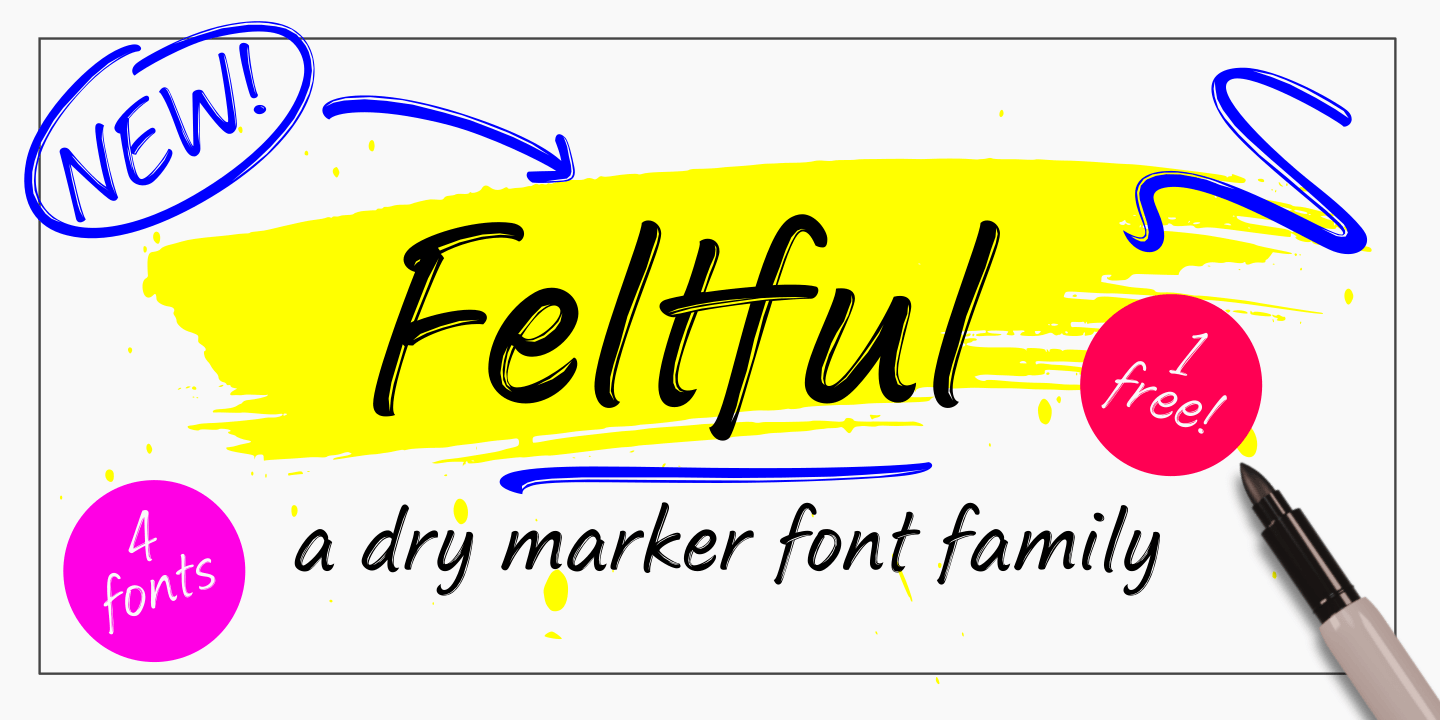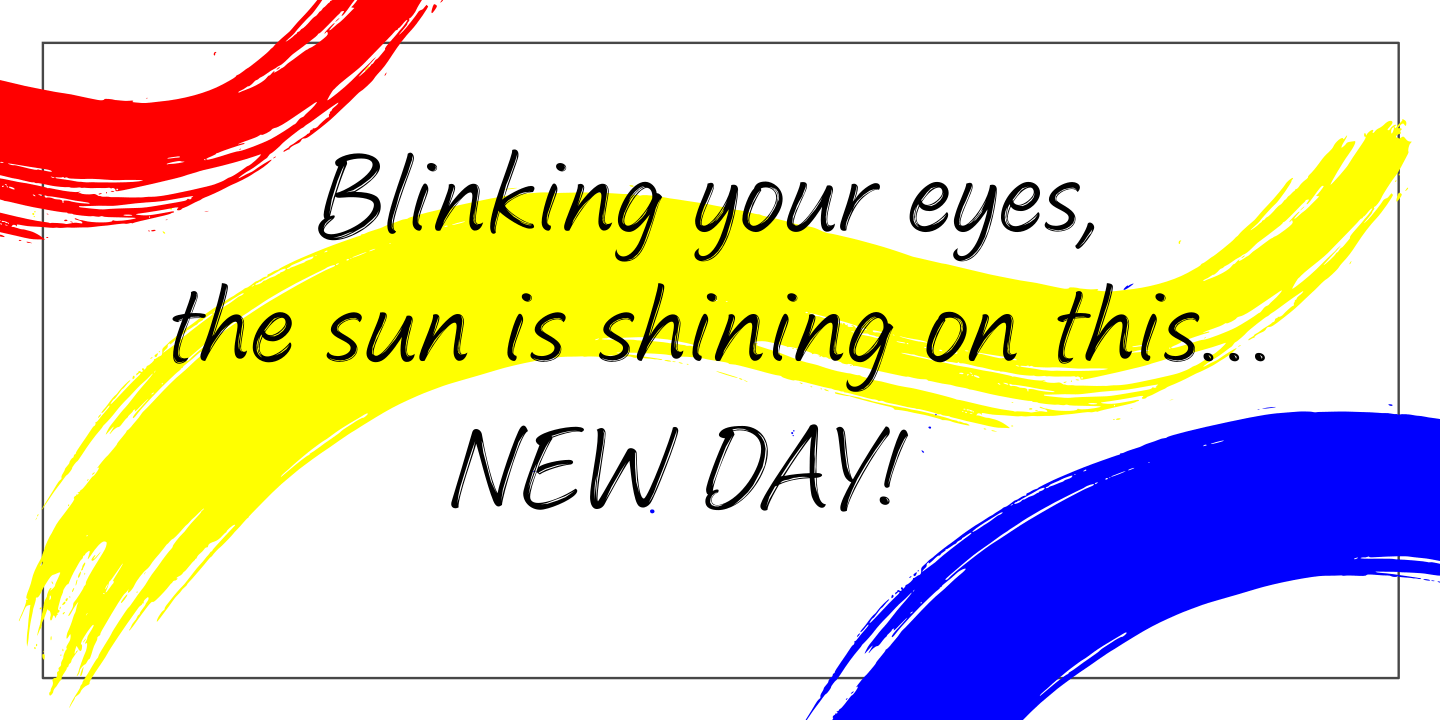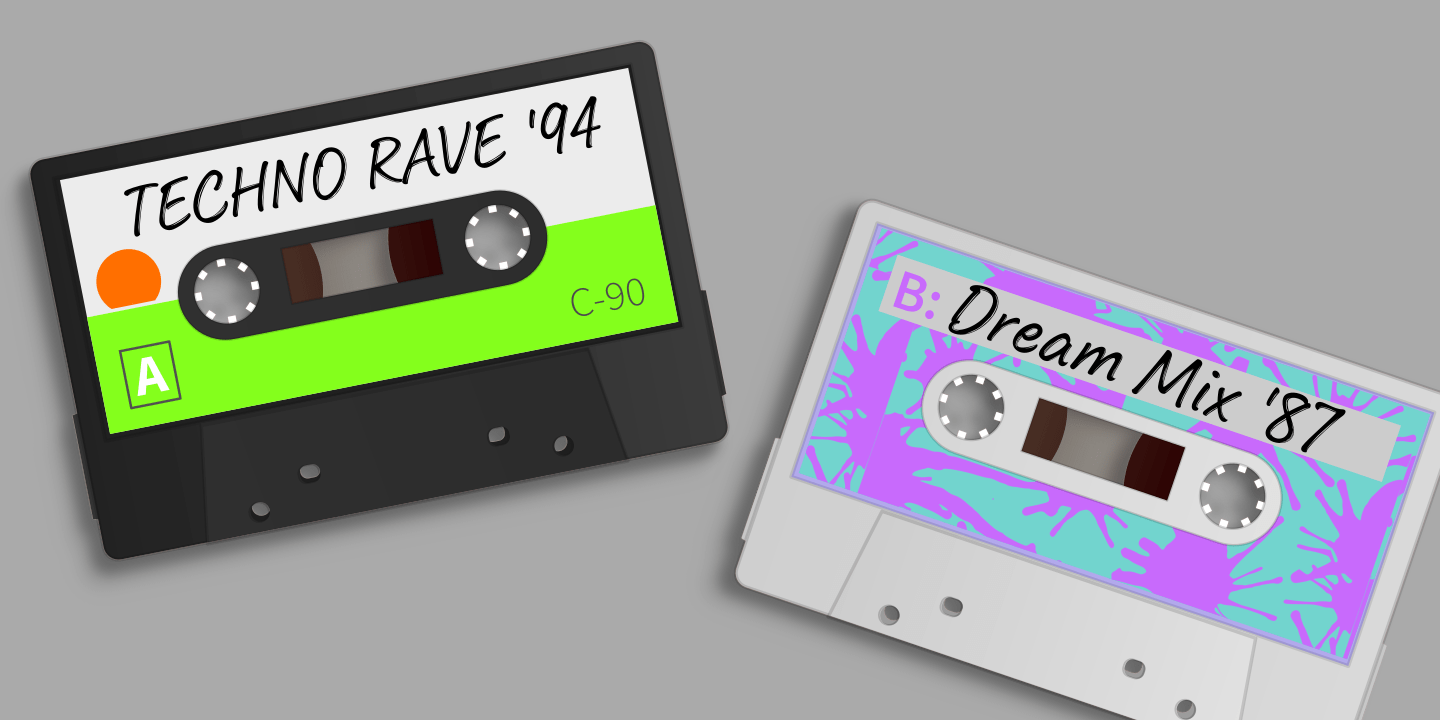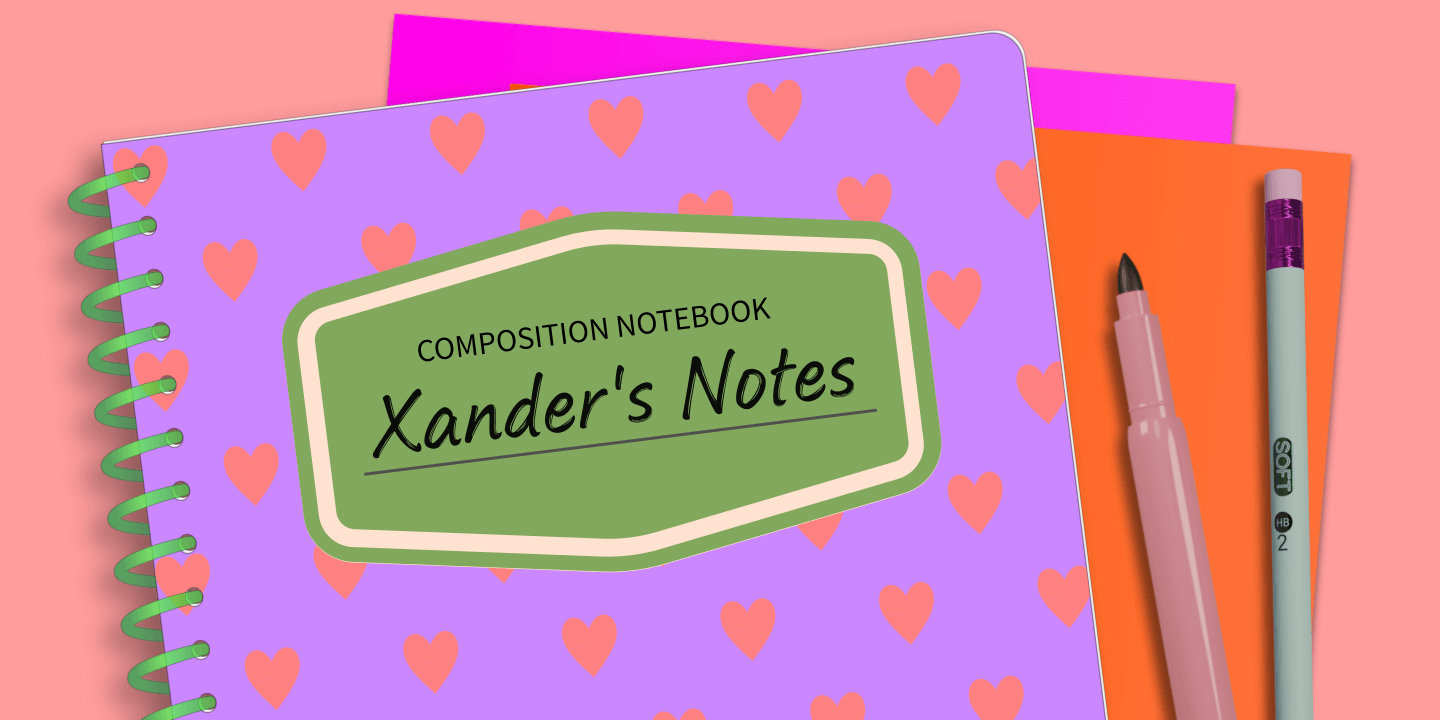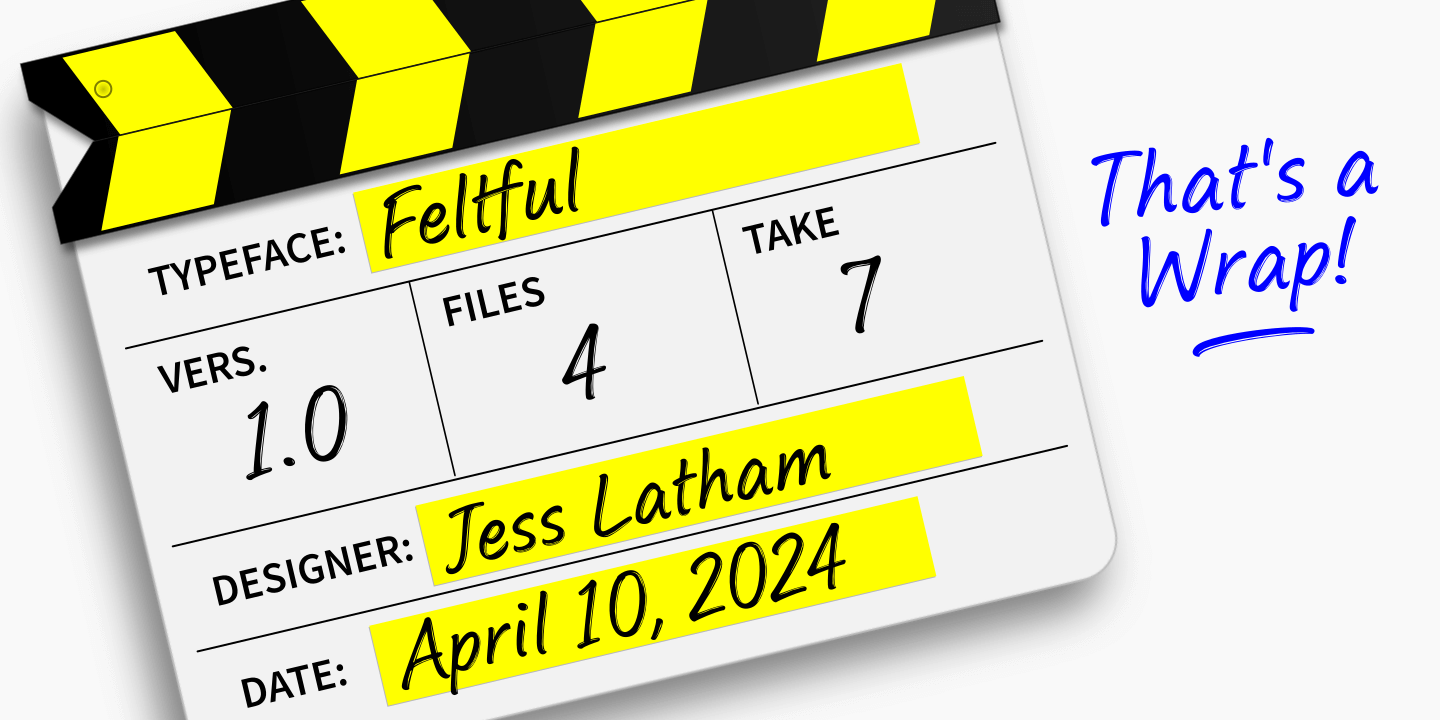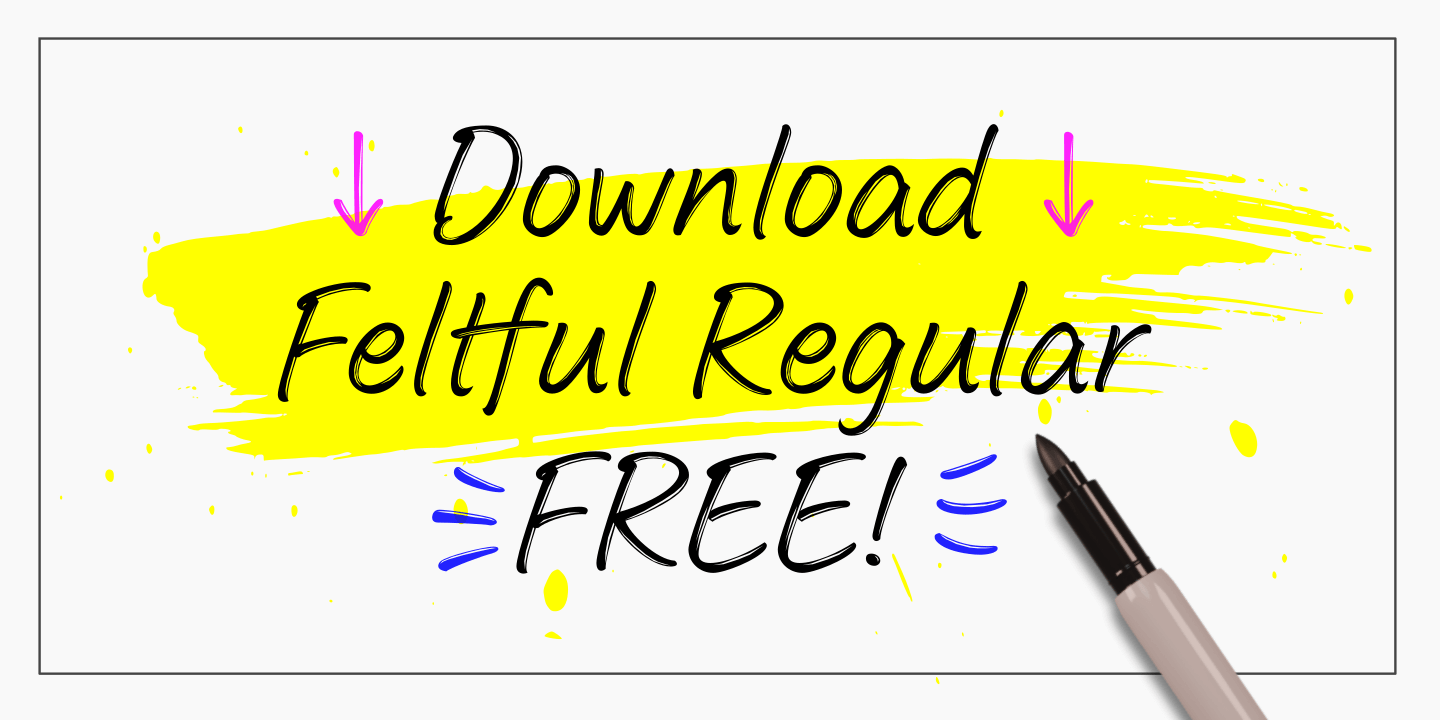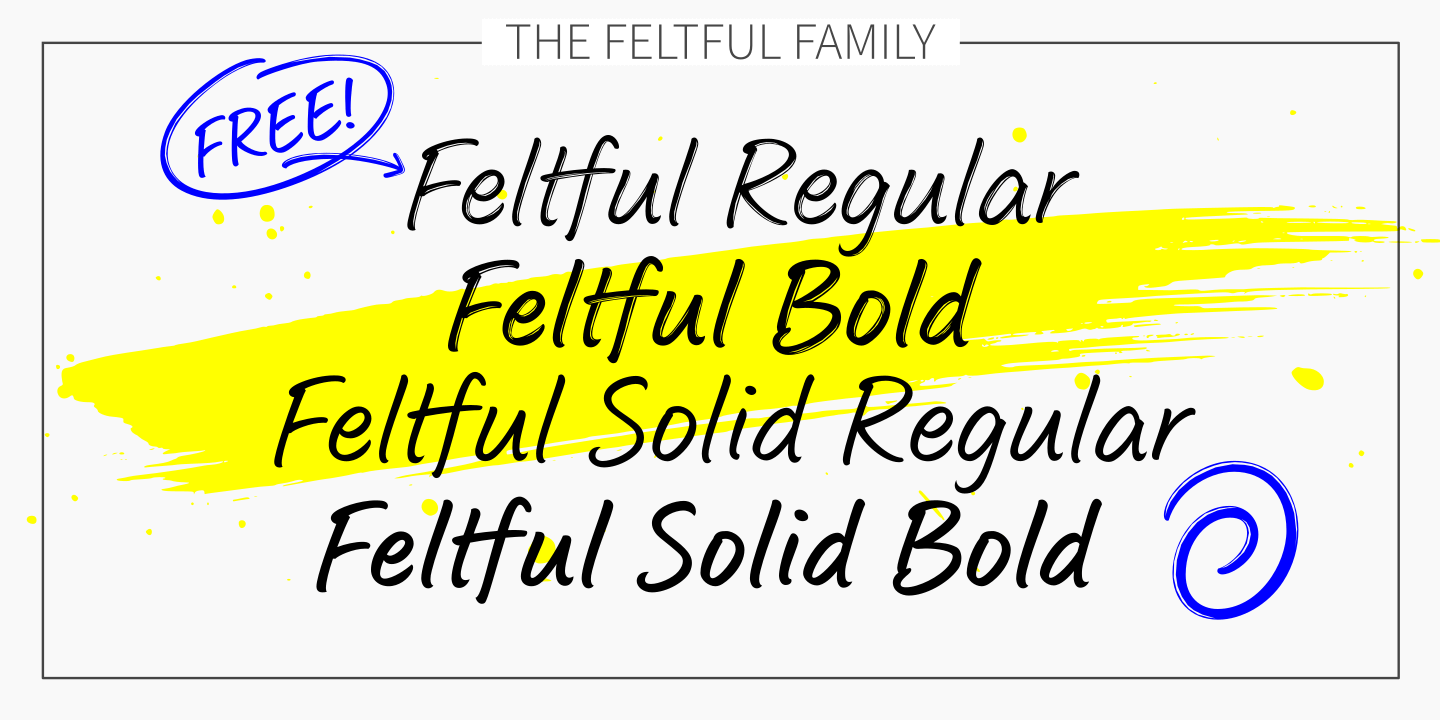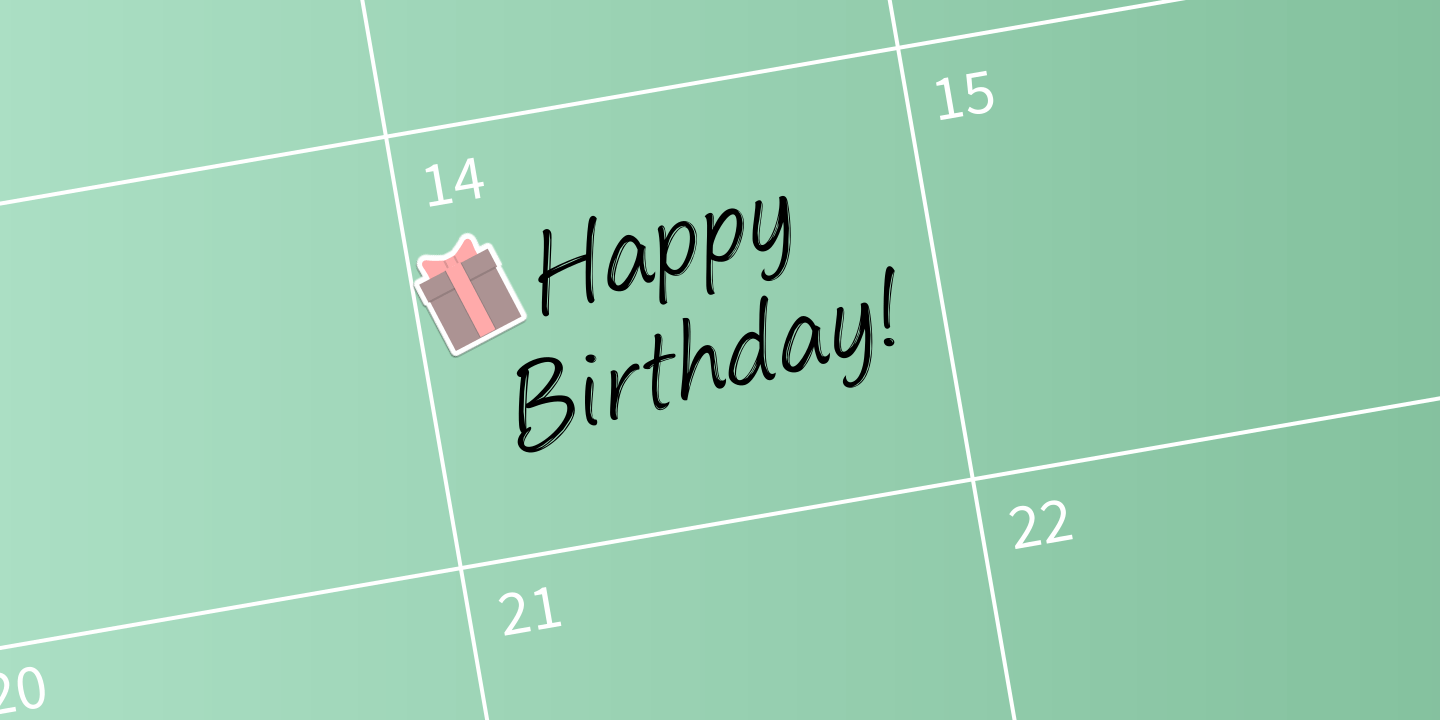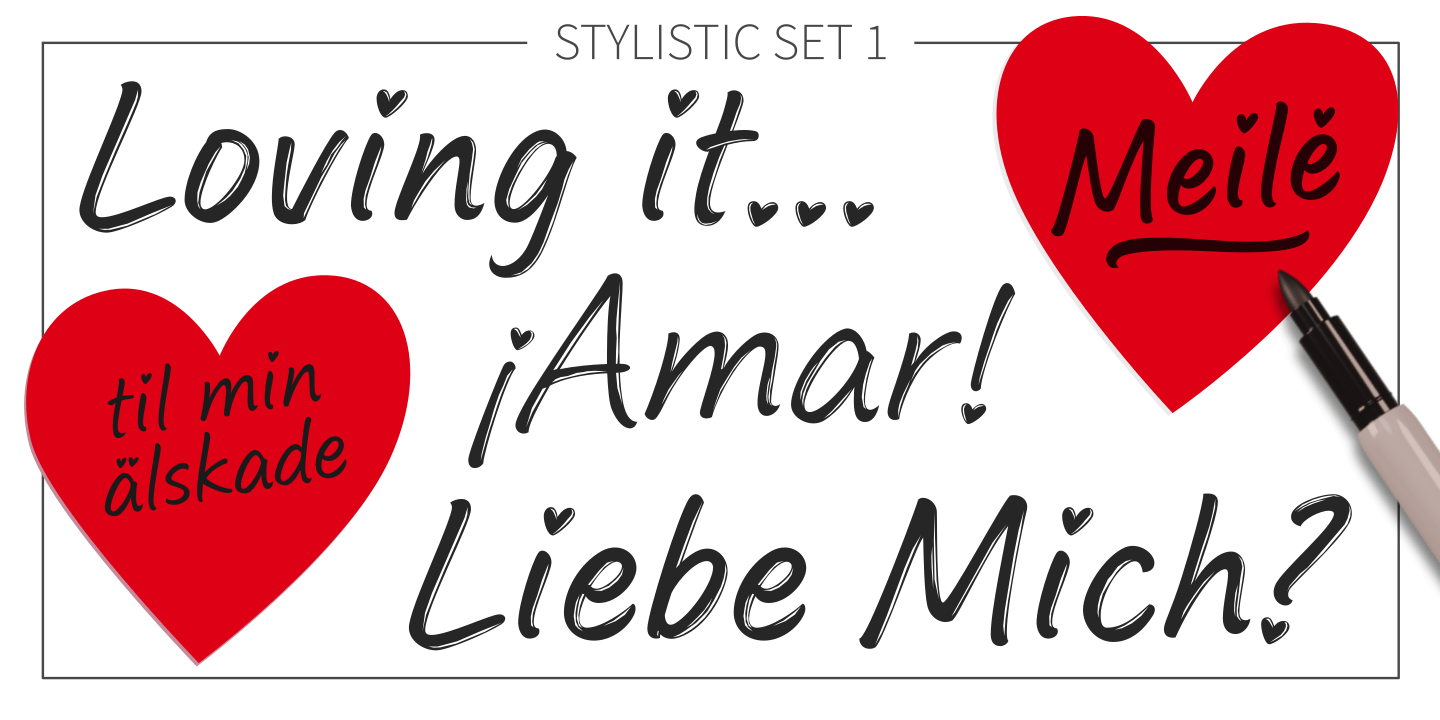
Feltful
Introducing Feltful, a typeface that's giving dry marker realness and evokes a sense of creativity, spontaneity and effortless cool!
With its unique texture, Feltful adds an irresistible flair to your projects. Whether you're designing posters, logos, or social media graphics, this typeface brings an element of organic beauty to every word.
Not only does Feltful emulate the look of dried-out markers, but it's also perfect for recreating the appearance of writing on smooth surfaces like dry erase boards.
If your not looking for a dry texture then Feltful has a set of solid versions for that purpose.
Feltful has many opentype features. First, it contains contextual alternates (A-Z, a-z) that are triggered when contextual alternates are turned on in your design program where double letter combinations appear.
Second, stylistic set 1, that places hearts on the dotted i and j and other dotted characters.
Third, stylistic set 2 that contains 26 ornaments.
Fourth and finally, a set of ligatures!